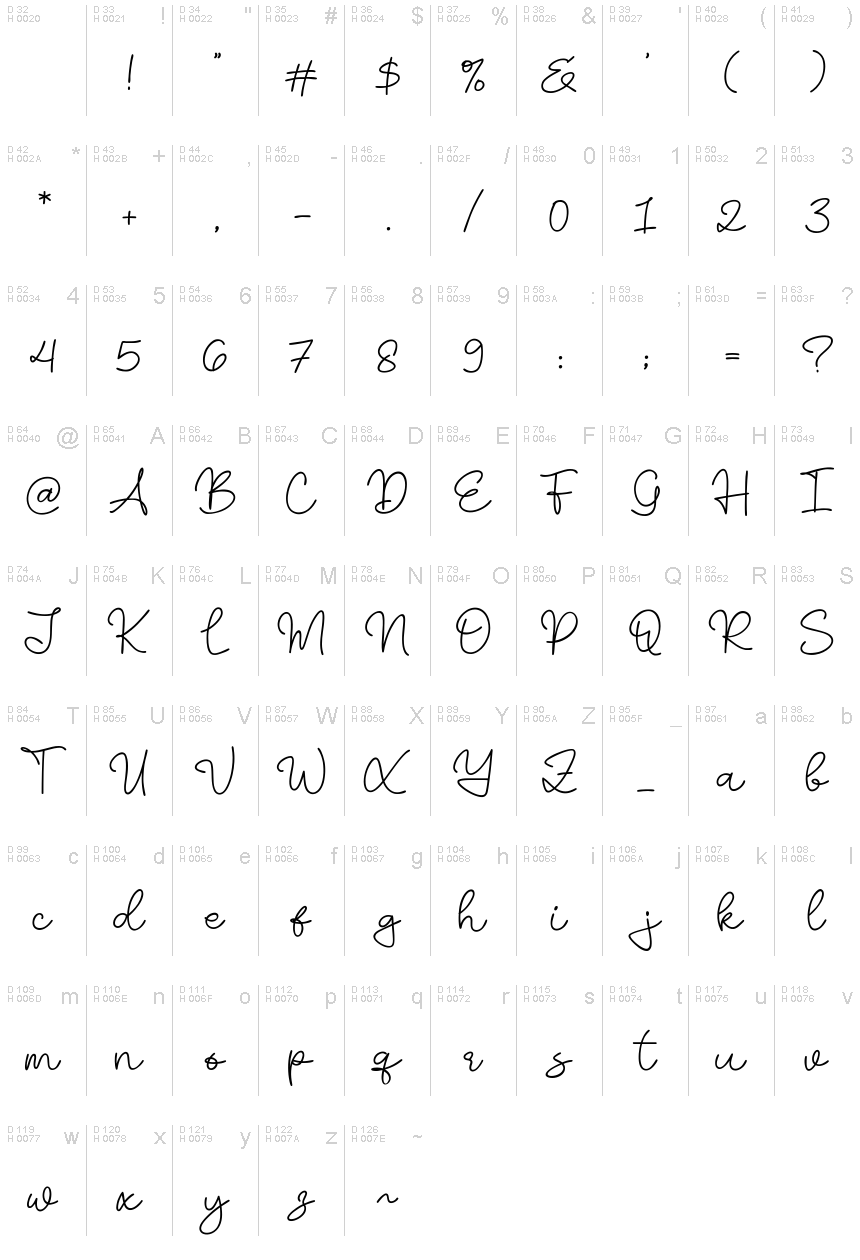
Slimthy
Slimthy, a captivating handwritten font crafted by Khurasan, exudes an effortless elegance that captivates the eye. With its light, flowing strokes and organic curves, this font radiates a sense of warmth and approachability, inviting the reader to engage with the content. The delicate balance between the thin and thick lines creates a visually compelling rhythm, lending a touch of refined sophistication to any design.
The versatile nature of Slimthy makes it a versatile choice for a wide range of applications, from editorial layouts and branding materials to heartfelt wedding stationery and personal correspondence. Its whimsical yet refined aesthetic lends itself seamlessly to projects that seek to evoke a sense of timeless charm and authenticity, making it a valuable addition to any designer's toolkit.